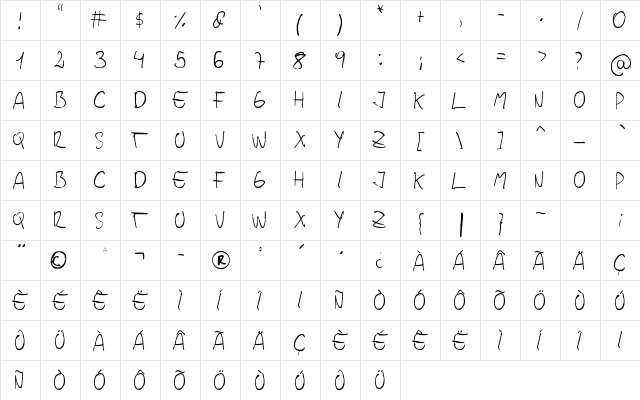
jopea302 Simple Regular
Design Context for jopea302 Simple Typeface
jopea302 Simple takes a measured approach to typography — its balanced proportions and neutral character make it a reliable workhorse for both digital and print work.